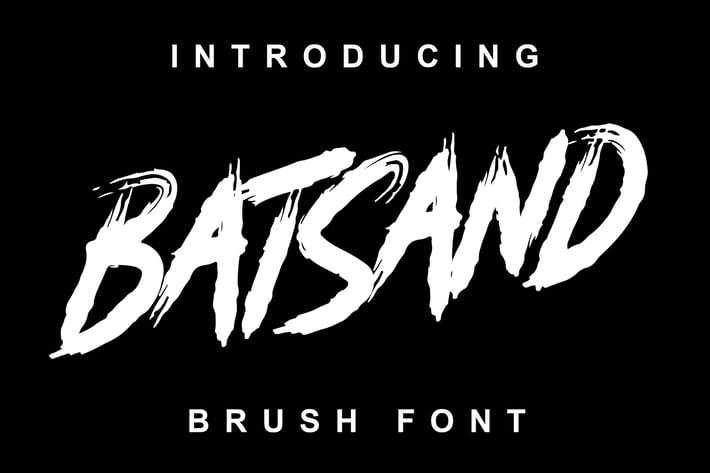
Batsand Brush Font
The Batsand is unique logotype font. This font is perfect for logo, quote, poster, playful lettering, for clothing, or any design projects.